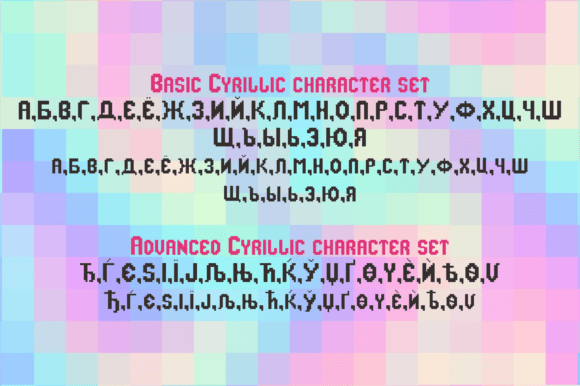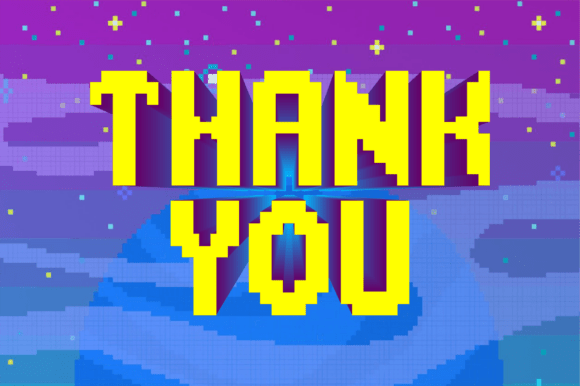
Introduction to Retropix Font
Remember the thrill of discovering a hidden secret in your favorite childhood video game? The rush of excitement as you unlocked a new level or defeated a challenging boss? For many of us, those memories are still etched in our minds, and it’s no wonder why retro aesthetics continue to inspire creativity in designers today.
Enter the Retropix Font, a stunning pixelated retro-style font that brings the nostalgic feel of the 8-bit era to your designs. With its bold, sharp-edged letterforms, this font is a game-changer for designers looking to add a classic touch to their creative projects. Whether you’re working on a freelance project or a high-profile campaign, the Retropix Font is a valuable resource that will help you stand out from the crowd.
Key Features of Retropix Font
- Unique, high-quality design suitable for creative projects and retro-themed designs.
- Features a transparent background, making it easy to customize and integrate with different designs.
- Designed to be highly legible, even at small sizes, making it ideal for use in various design contexts.
- Includes a range of characters, including uppercase and lowercase letters, numbers, and special characters.
- Supports resolutions up to 300 DPI, ensuring crisp and clear text rendering.
- Perfect for designers looking for a unique, high-quality design resource for their next creative project.
Honest Review: Retropix Font
As a designer, I’m always on the lookout for high-quality design resources to elevate my creative projects. The Retropix Font caught my eye, and I’m excited to share my thoughts on this retro-inspired font.
- The font has a unique, retro aesthetic that’s perfect for creating a nostalgic vibe in your design.
- The transparent background option is a great feature for designers who want to create visually appealing graphics.
- The font is highly customizable, allowing you to adjust the size, color, and style to suit your design needs.
- The font may not be suitable for all design projects, particularly those requiring a more modern or minimalist aesthetic.
- The font’s retro style may not be to everyone’s taste, so it’s essential to consider your target audience before using it.
Overall, I’m impressed with the Retropix Font’s unique design and versatility. While it may not be perfect for every project, it’s an excellent choice for designers looking to add a retro touch to their creative work. With its high-quality design and free download option, it’s definitely worth considering as a design resource.
Tips for Getting the Most Out of the Retropix Font
To get the most out of the Retropix Font, try pairing it with other nostalgic design elements, such as retro-style graphics and textures. You can also experiment with different font sizes and styles to create a unique look.
The Retropix Font is perfect for a variety of design projects, including:
– Retro-themed posters and flyers
– Nostalgic website designs
– Vintage-inspired social media graphics
Is the Retropix Font available with a transparent background?
Yes, the Retropix Font is available with a transparent background, making it ideal for use in designs with complex backgrounds or layers. The font’s transparent background allows for seamless integration with other design elements and can add a professional touch to your creative project.